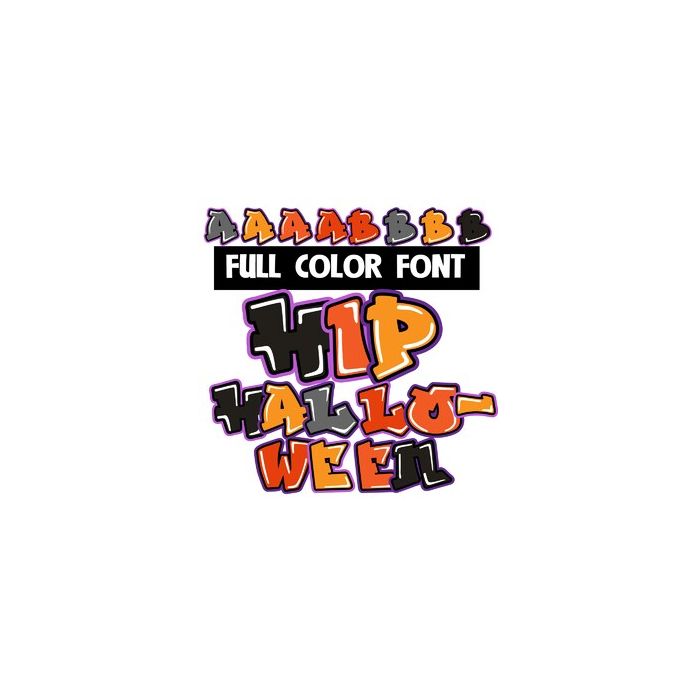
This full-color graffiti font is created in a halloween color palette. There is an alt case with additional color you can access through Silhouette's glyph map.